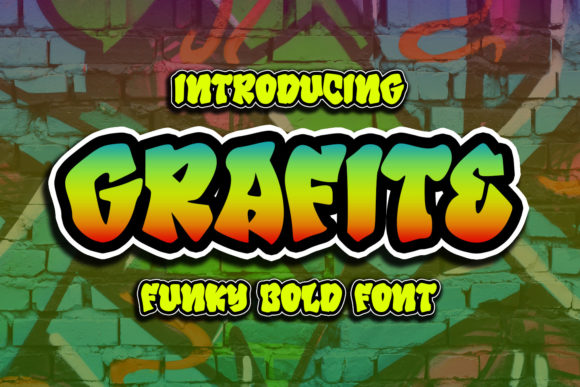
Unleash Your Creativity with Grafite Font: Embark on a Typographic Adventure
Dive into the world of urban expression with Grafite Font, a captivating display font inspired by the vibrant energy of street art. This bold and edgy font exudes a raw and authentic vibe, adding a touch of rebellion to your designs. With its thick, graffiti-styled letters, Grafite Font demands attention and makes a statement wherever it appears.
Step into the shoes of a street artist and let your imagination run wild. Grafite Font is the perfect companion for capturing the essence of urban culture in your designs. Whether you're creating t-shirts, sportswear, logos, advertisements, or clothing, this font will infuse your work with a rebellious spirit and an unforgettable impact.
Grafite Font's versatility shines through its ability to adapt to a wide range of design projects. Its bold strokes and graffiti-inspired aesthetic make it a perfect choice for edgy and unconventional designs. Unleash your creativity and push the boundaries of design with Grafite Font, leaving a lasting impression on your audience.
But Grafite Font isn't just limited to urban-inspired designs. Its captivating style also lends itself beautifully to holiday cards, adding a unique and personal touch to your festive greetings. Imagine sending out holiday cards adorned with Grafite Font's bold lettering, spreading joy and cheer with every message.
So why settle for ordinary fonts when you can make a statement with Grafite Font? Its bold presence and urban edge will transform your designs, captivating your audience and leaving a lasting impression. Embrace the spirit of rebellion and let your creativity soar with Grafite Font.